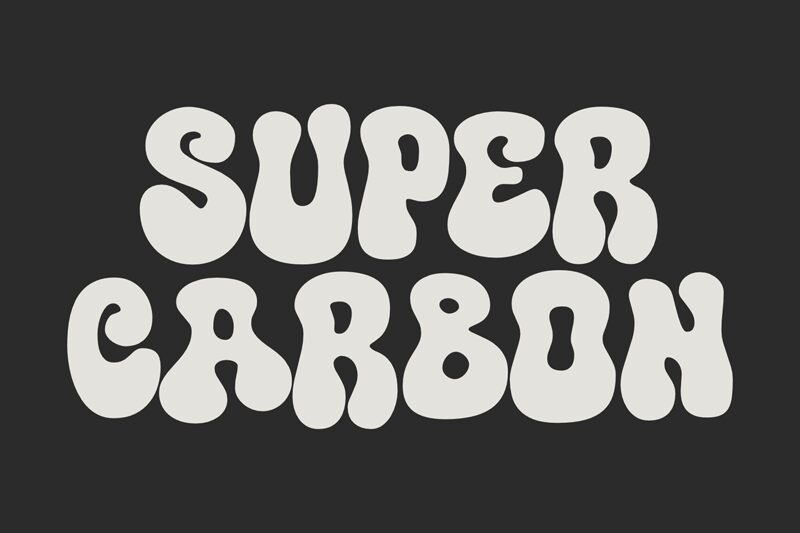
Super Carbon
Super Carbon emerges as a striking display font crafted by the skillful fsuarez913, embodying a distinctly groovy style that captures the essence of retro chic with a modern twist. With its extra-bold weight, this typeface boasts voluptuous curves and flowing lines that evoke the energy and boldness of the 1960s and 1970s typography while maintaining a polished contemporary finish.
The aesthetic allure of Super Carbon is undeniable; its smooth contours and solid form offer high visual impact, making it an ideal choice for projects that demand attention. From eye-catching headlines to standout logos, this font exudes confidence without compromising on legibility.
Given its display nature, Super Carbon finds itself at home in creative endeavors where personality is key. Whether deployed in branding, poster design, or digital media, this font's groovy flair adds an element of fun and sophistication that can elevate any composition. Embrace the dynamic character of Super Carbon for your next project and let its unique style become part of your design story.